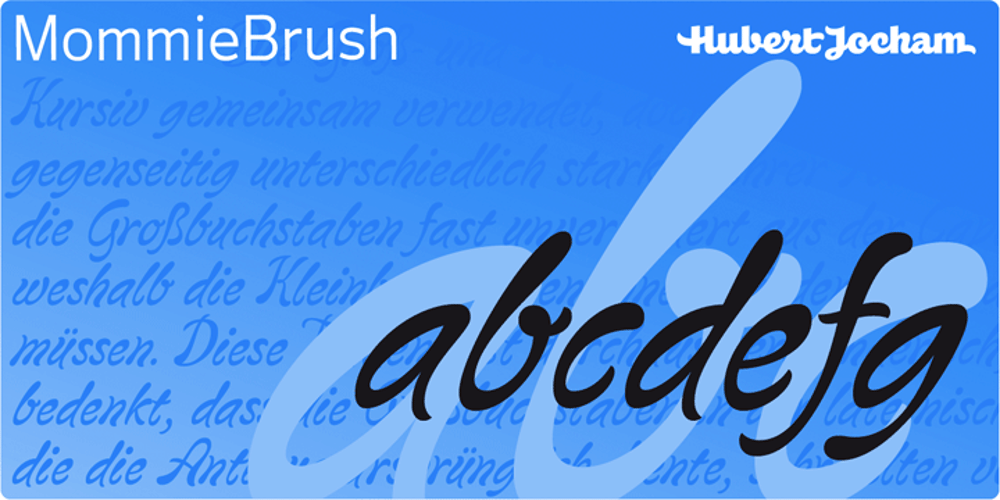
MommieBrush
MommieBrush font
MommieBrush Font Family was designed by Hubert Jocham and published by Hubert Jocham Type. MommieBrush contains 3 styles and family package options. MommieBrush is a brush script headline typeface. It is based on the Spencerian Mommie that won the 2008 TDC award. But as a brush script it works in a different area. Like my other brush script typefaces it is made for food packaging and product branding.